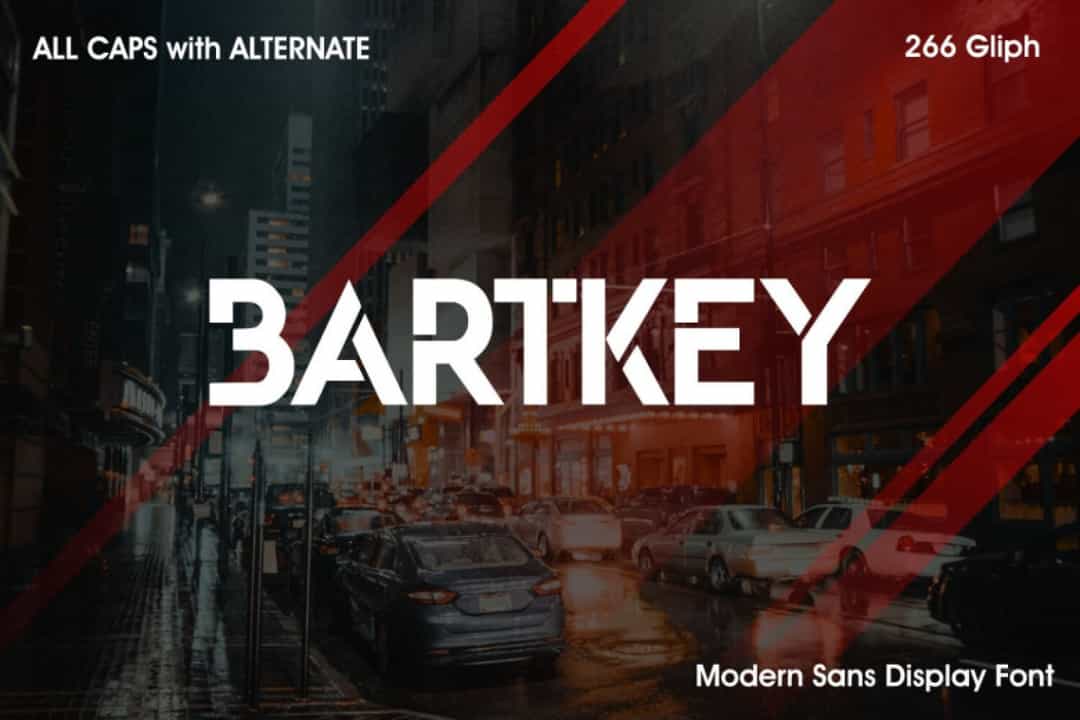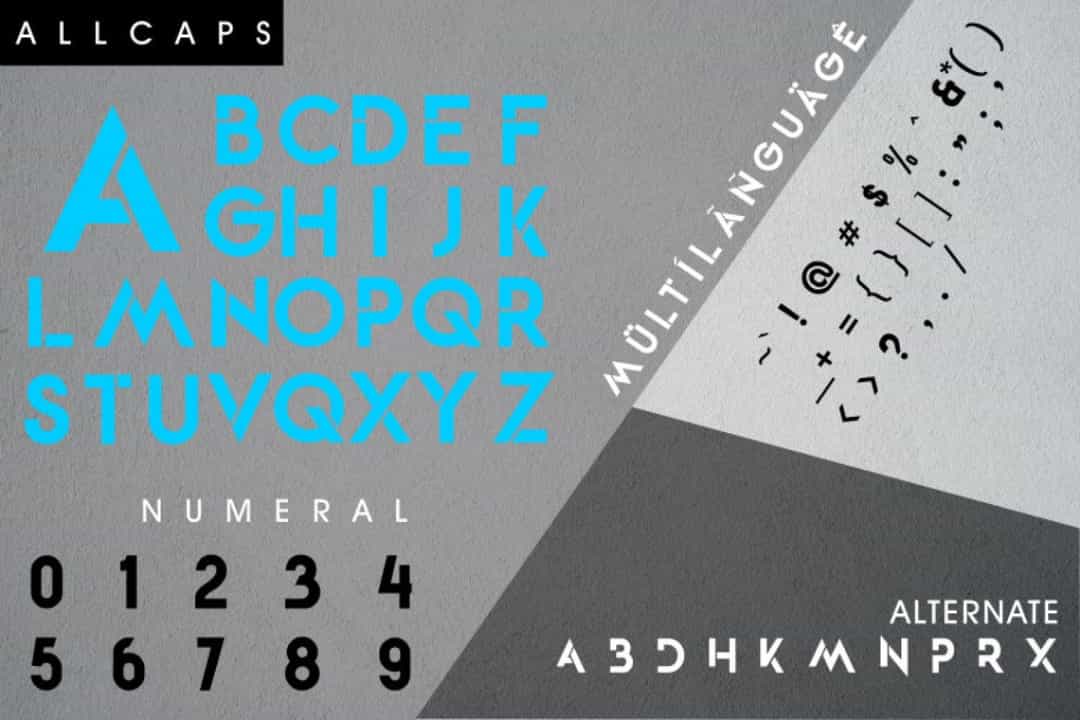
Bartkey is an elegant geometric sans-display font. With its geometric lines and bold sans-display font style, this font will work great in almost any creative project! So be sure to incorporate this bold sans-display font into your creative plans and watch how well it stands out!